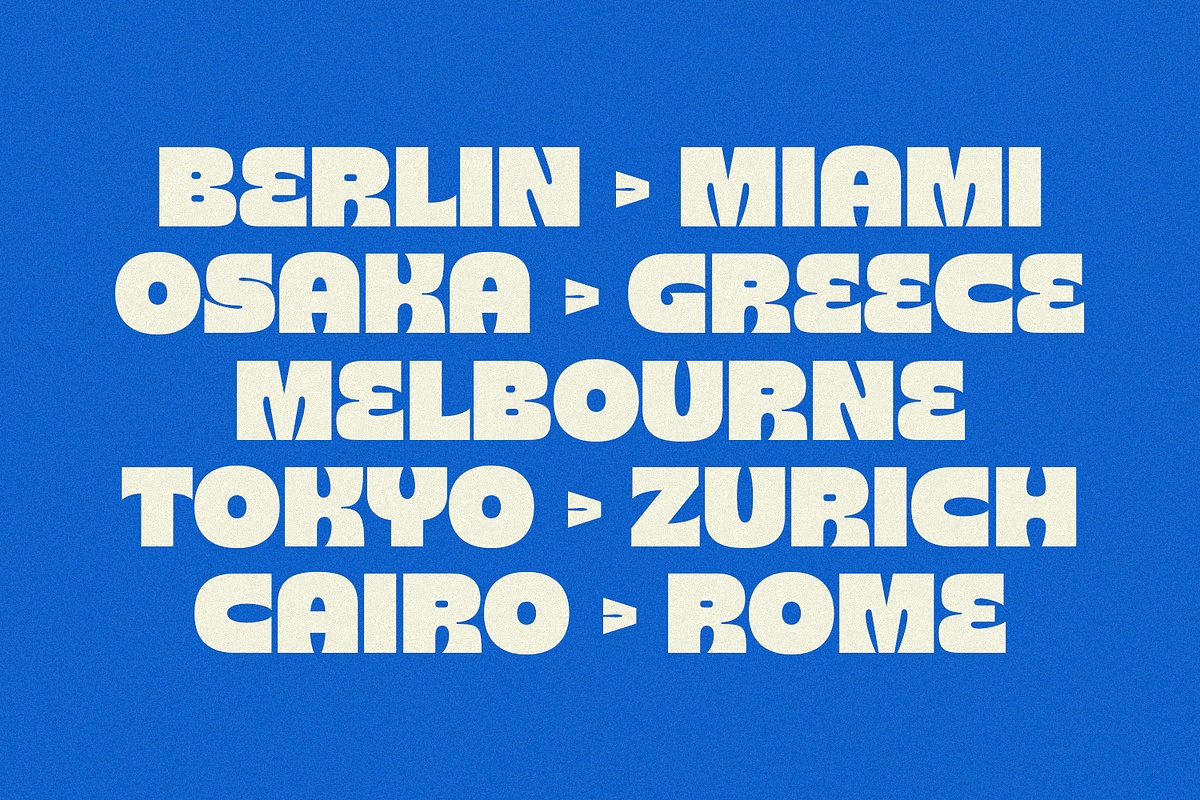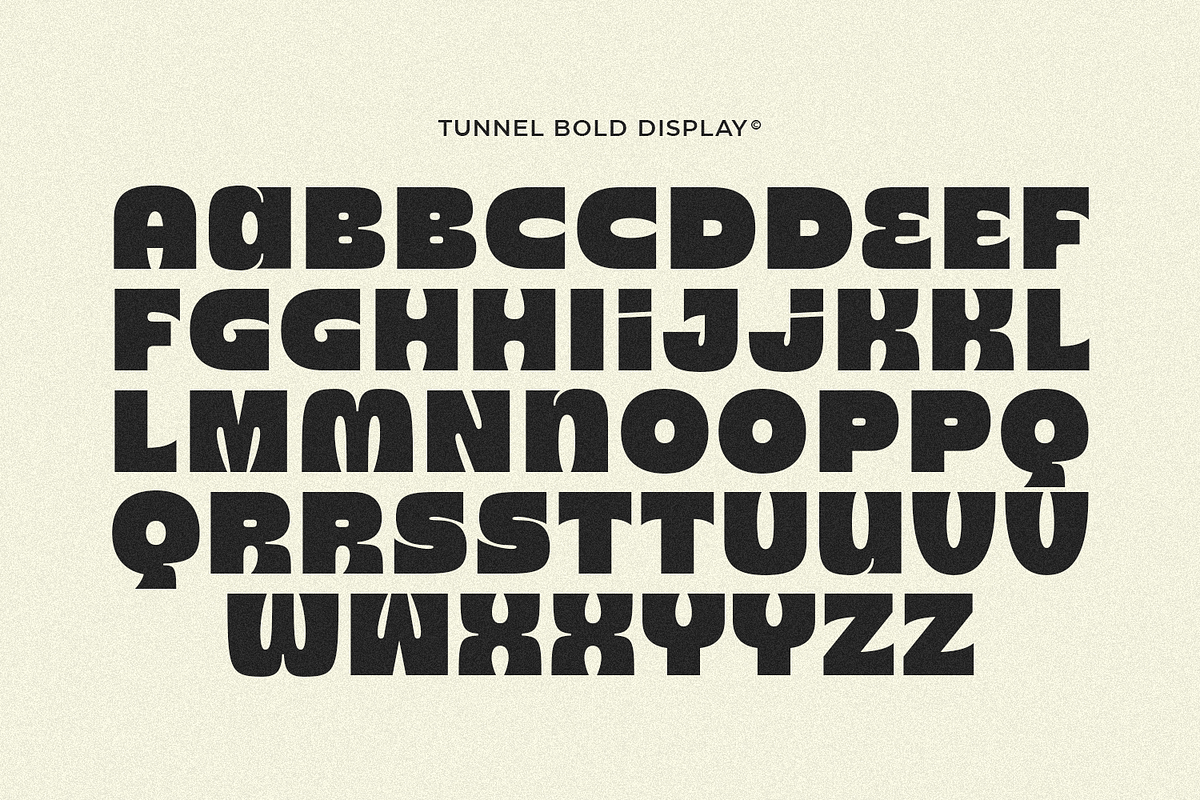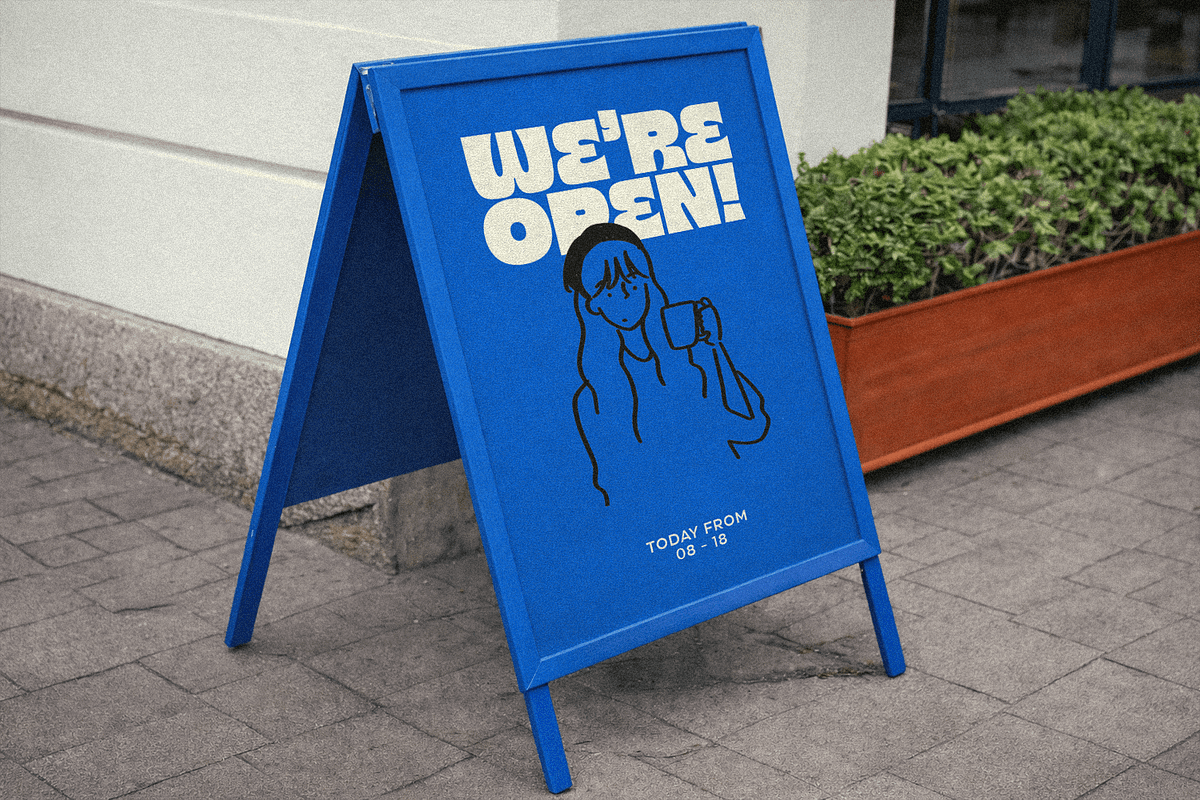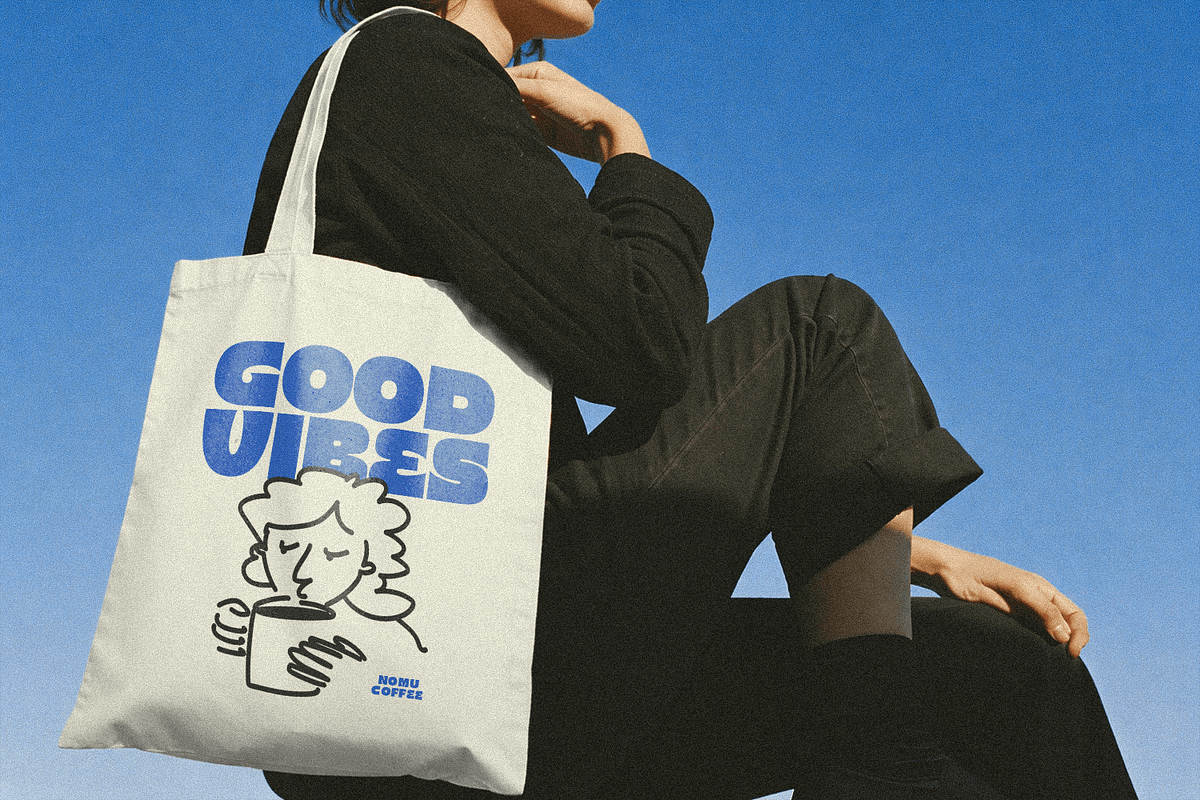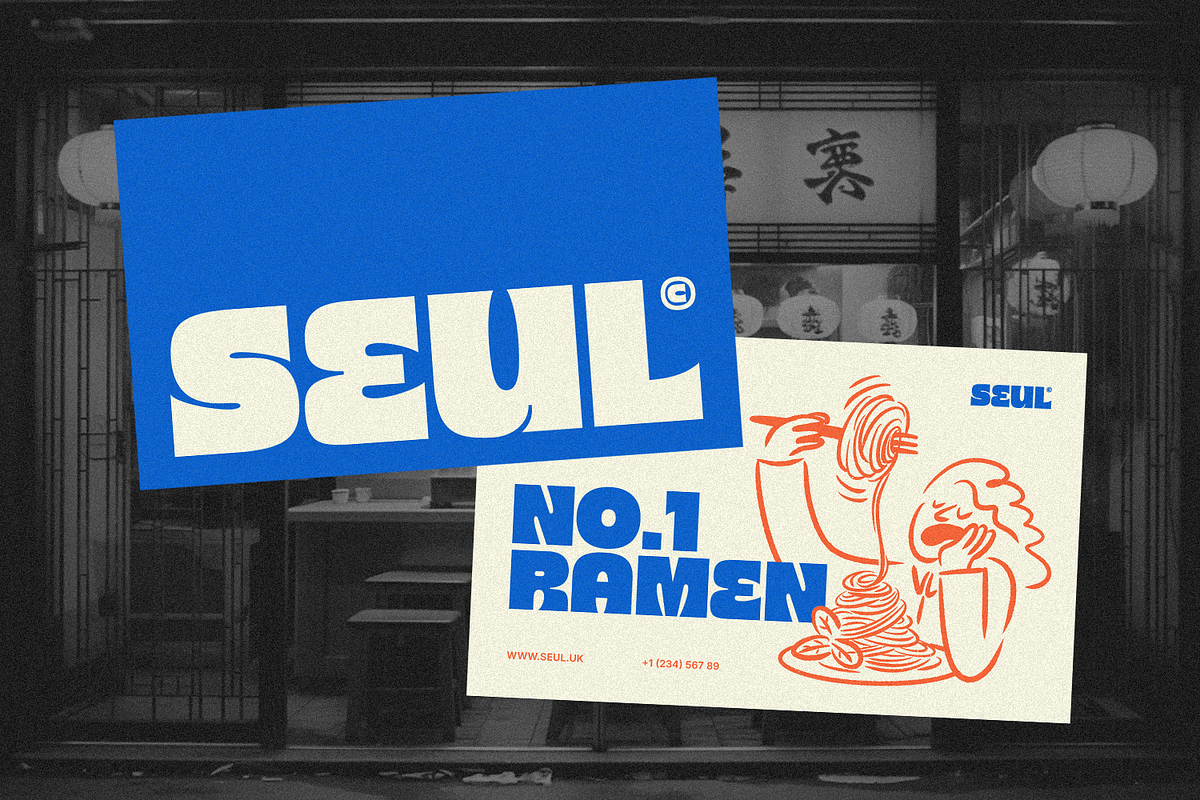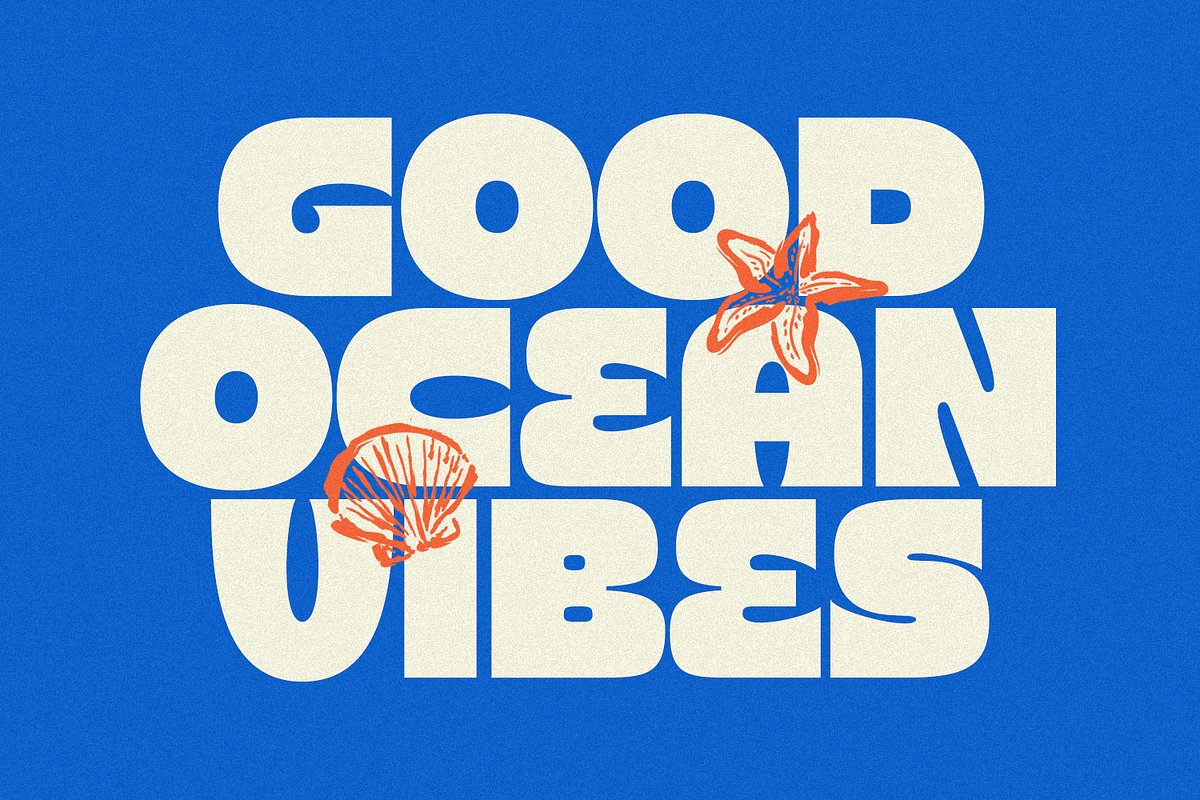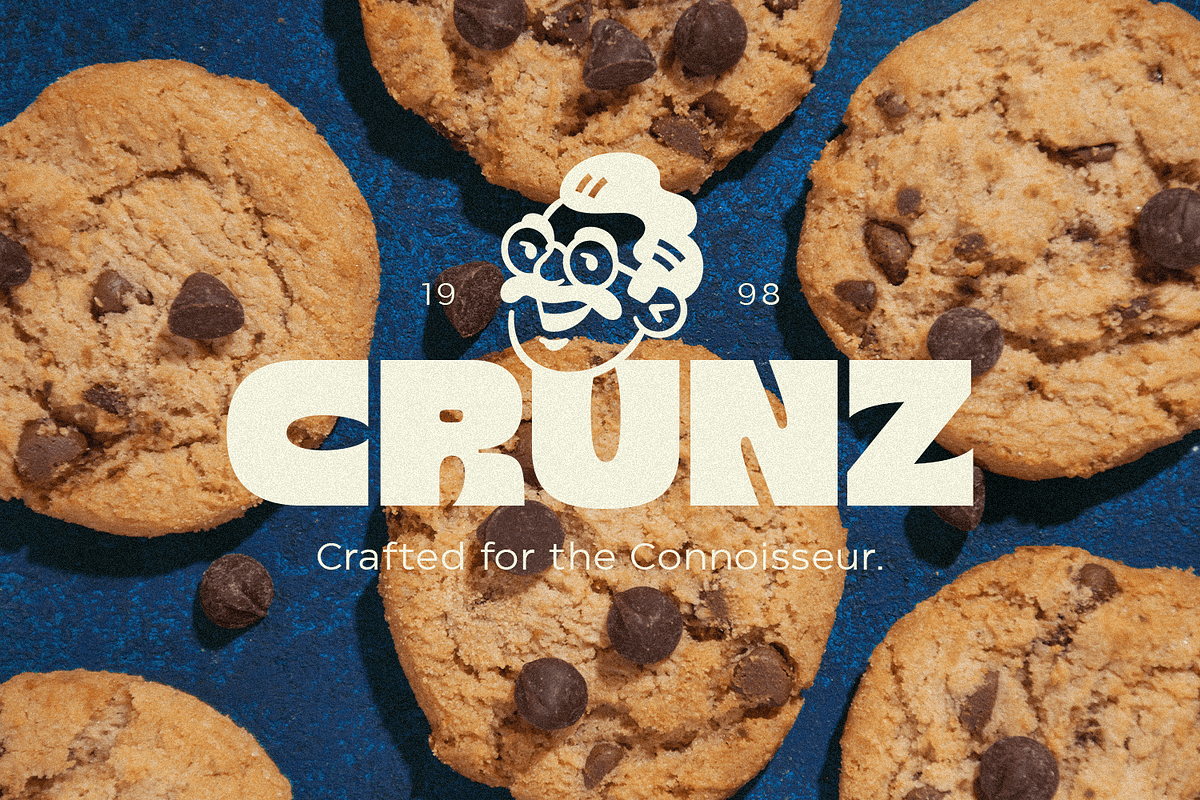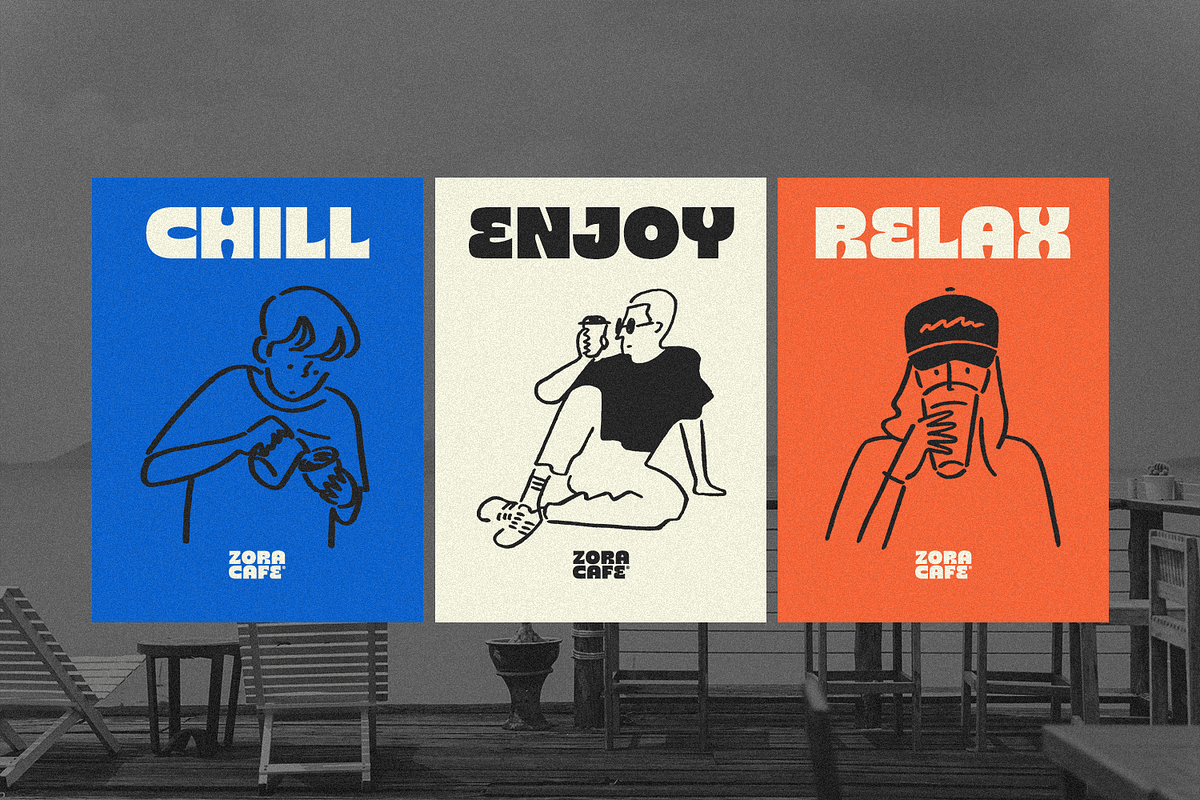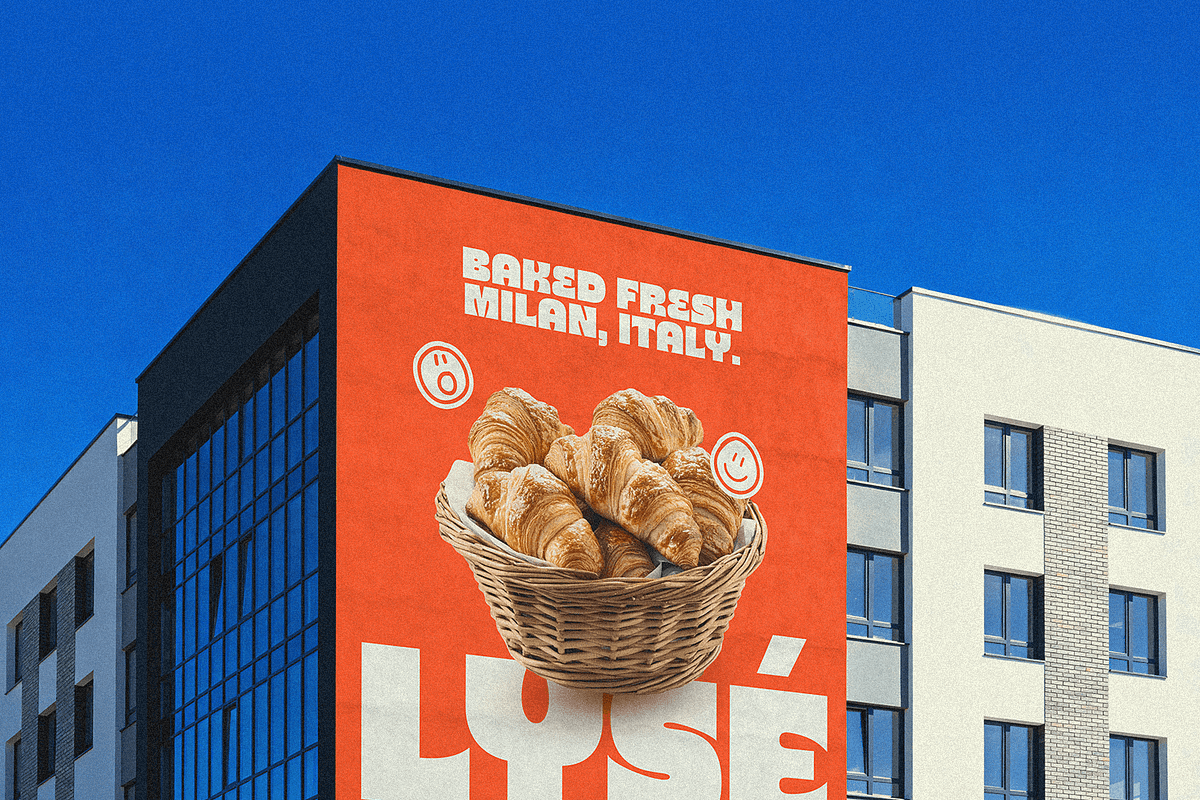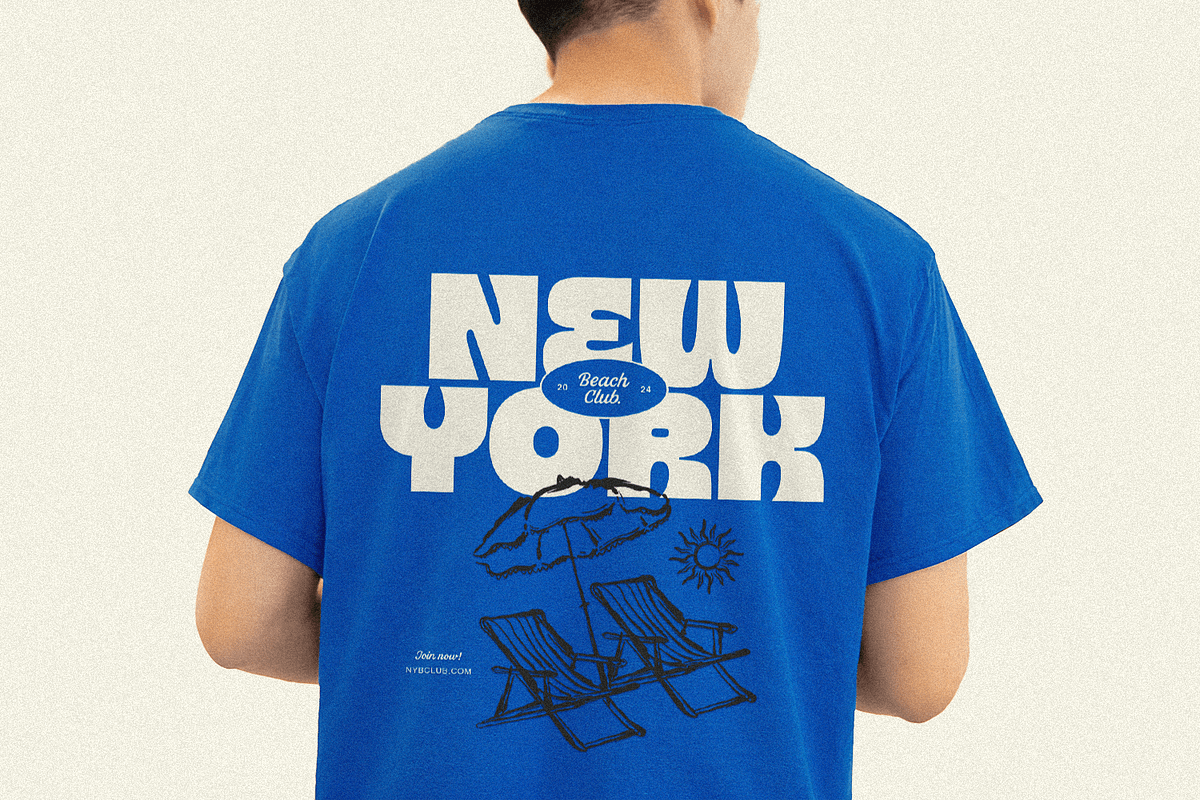
Tunnel - Bold Display Font
Introducing Tunnel - Bold Display Font
Tunnel is a bold display font designed to make a strong and confident visual statement. Featuring chunky letterforms, smooth curves, and solid proportions, Tunnel delivers a playful yet powerful typographic presence that feels modern, friendly, and highly eye-catching. Its bold construction makes every word stand out with clarity and character.
Perfect for posters, branding, logos, headlines, packaging, editorial layouts, and social media graphics, Tunnel excels in designs that demand attention and personality. Whether you're creating striking titles, bold brand identities, or contemporary visual campaigns, Tunnel brings impact, confidence, and modern charm to every composition.
- Ligatures
- Uppercase and Lowercase letters
- Numbering and Punctuations